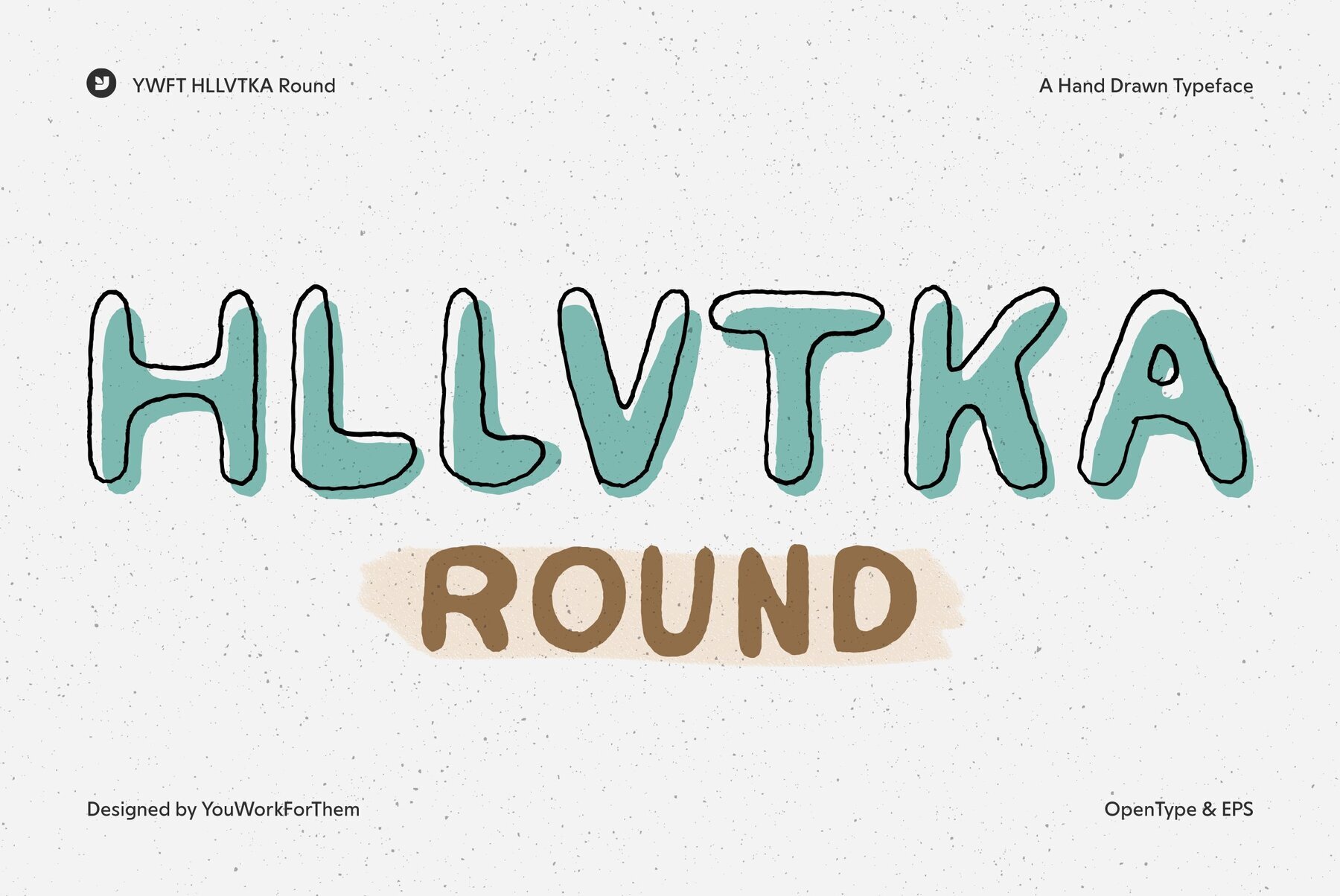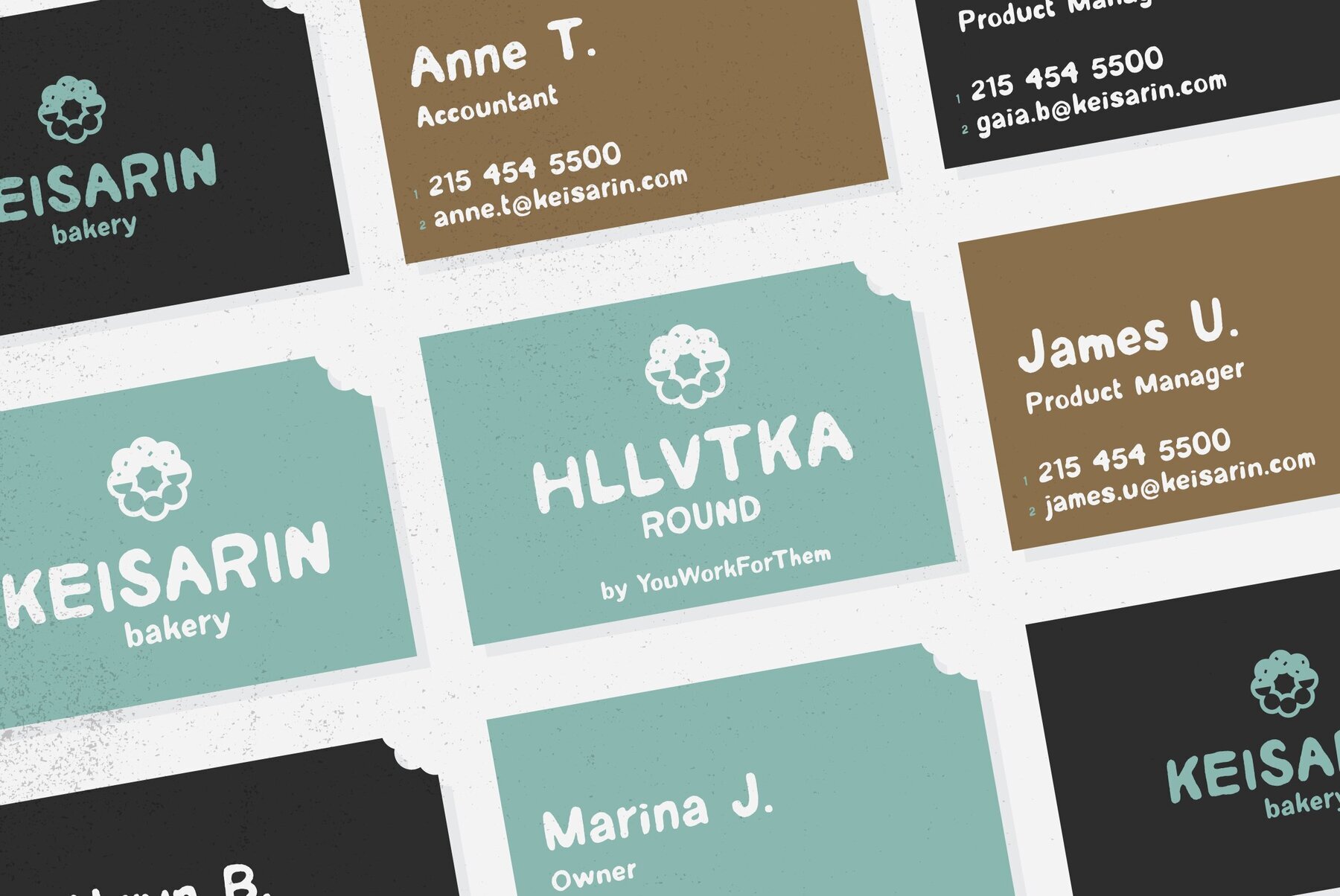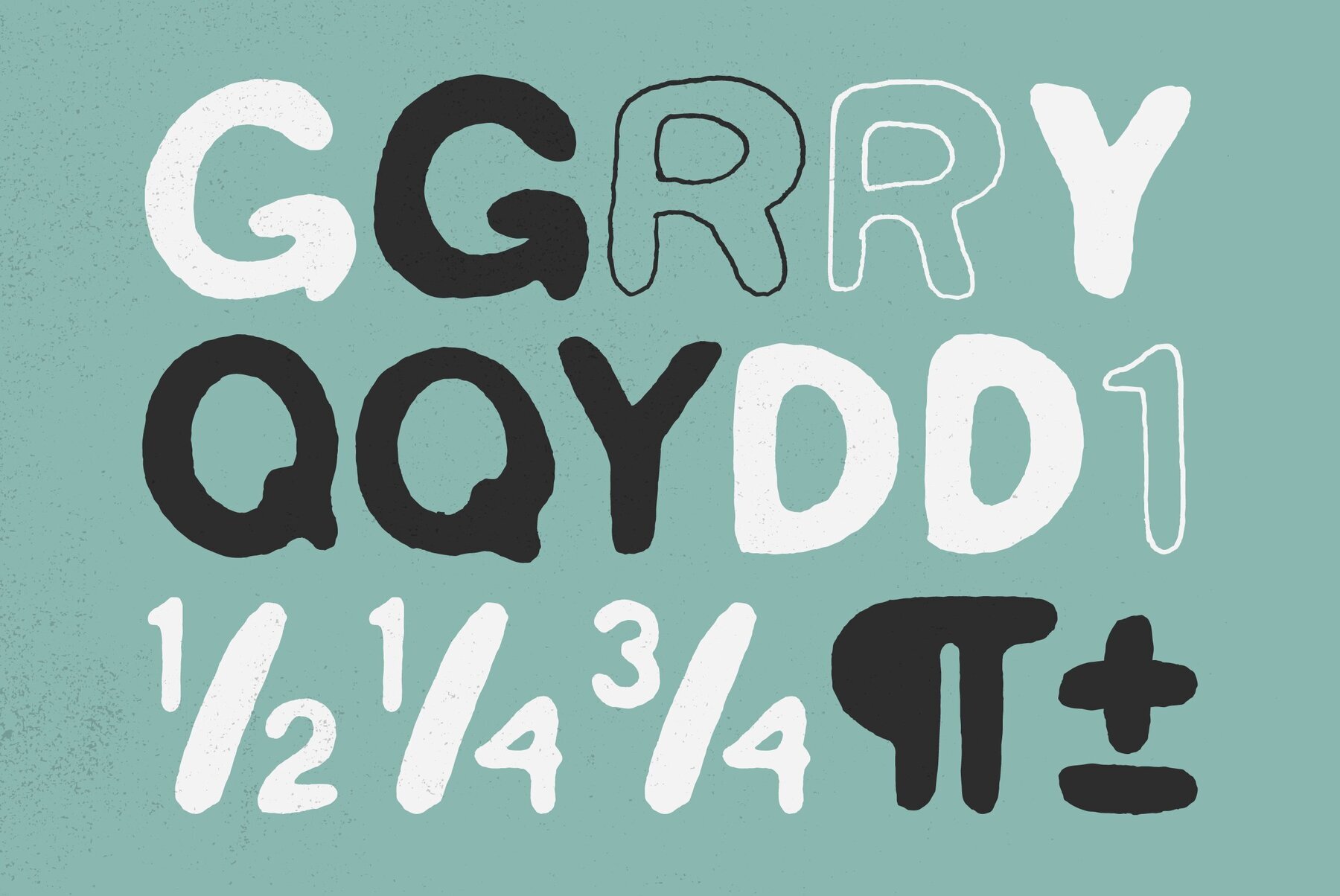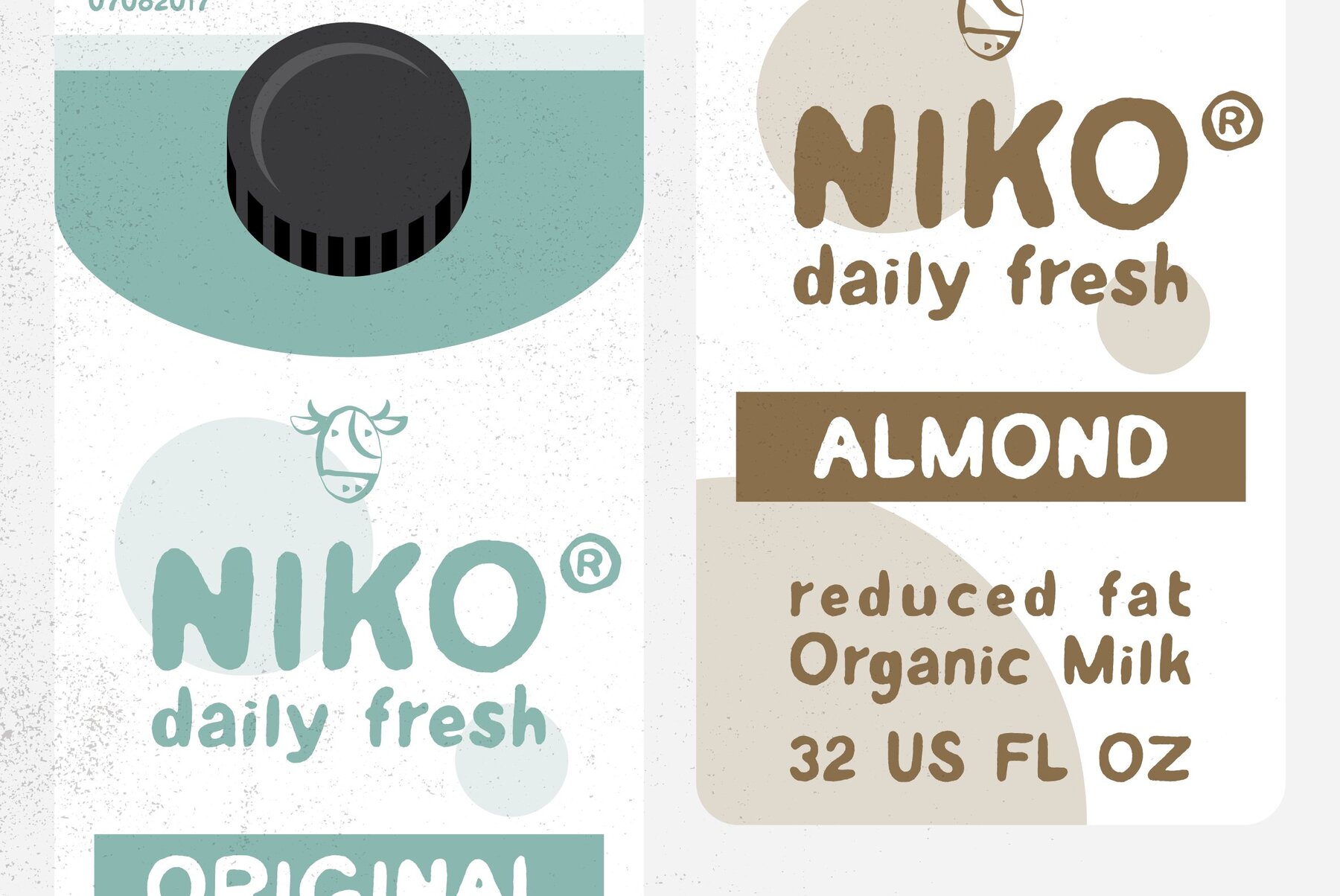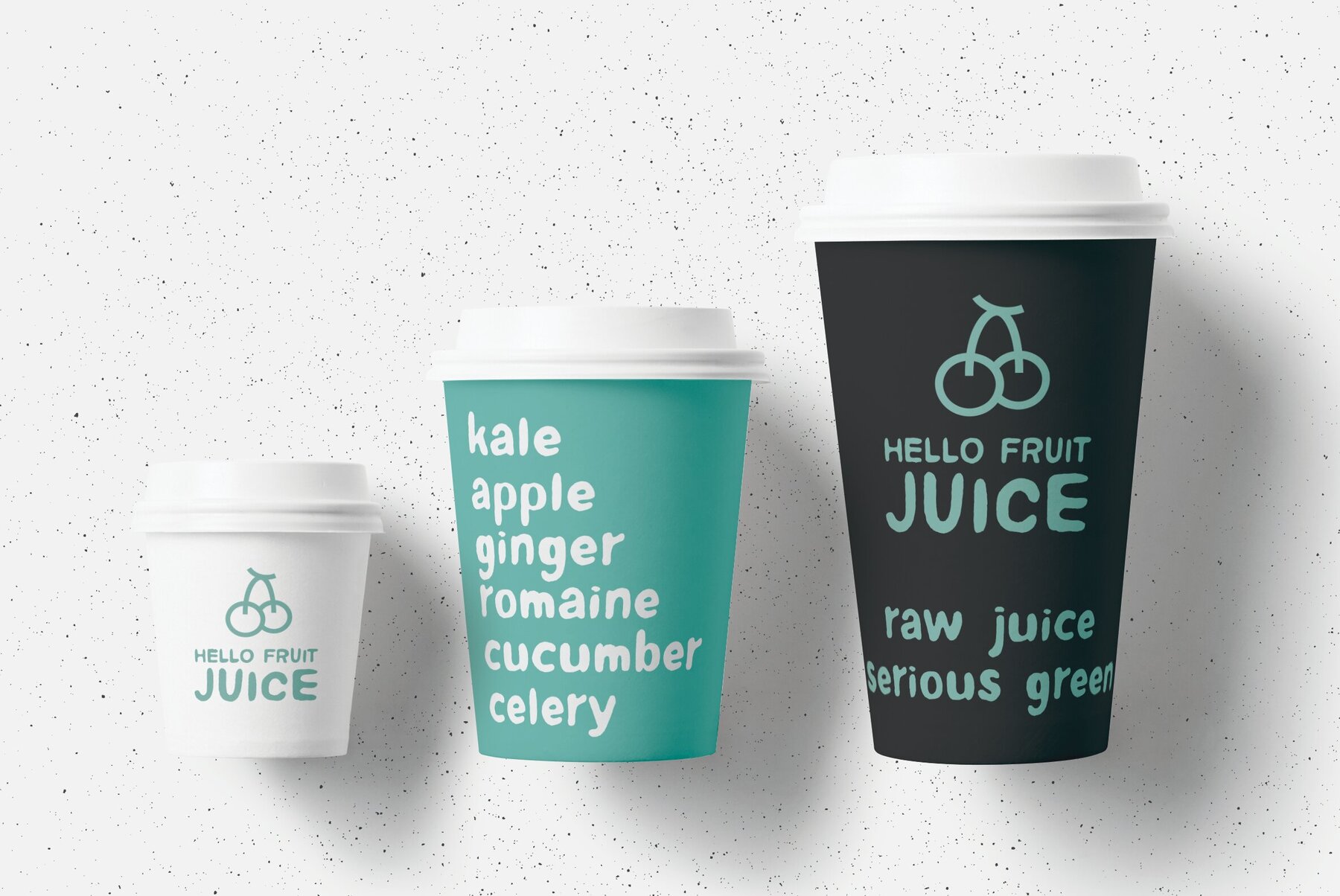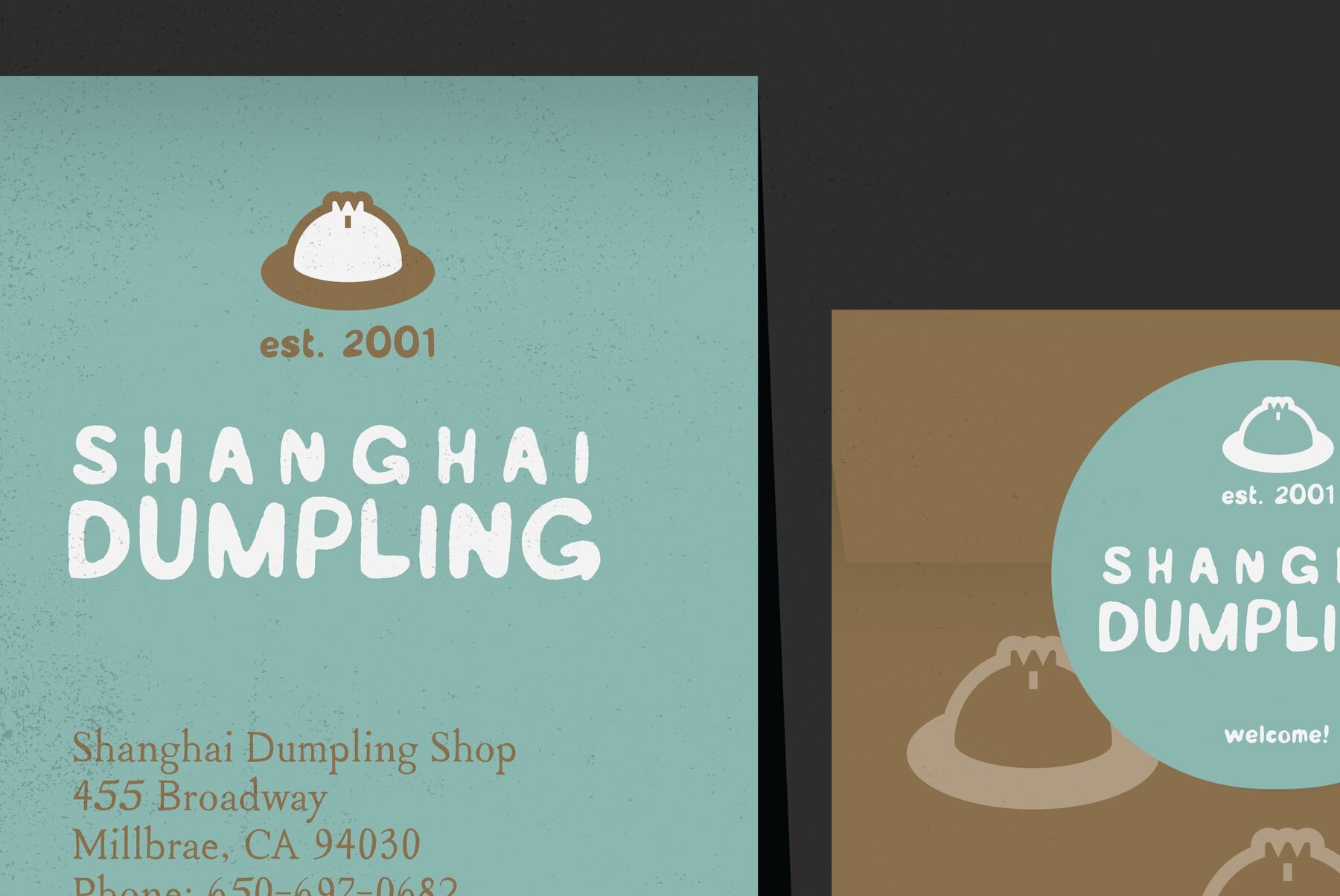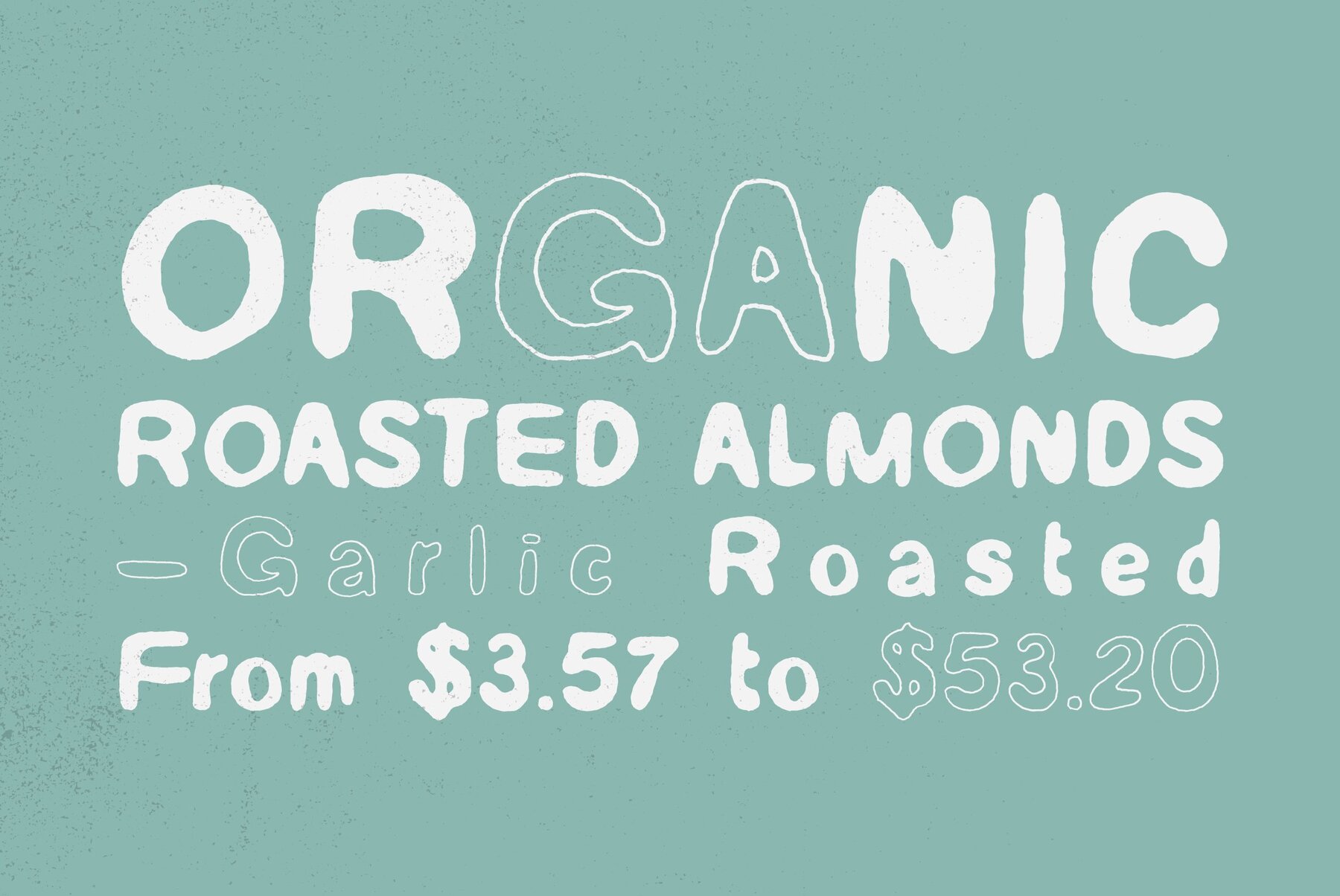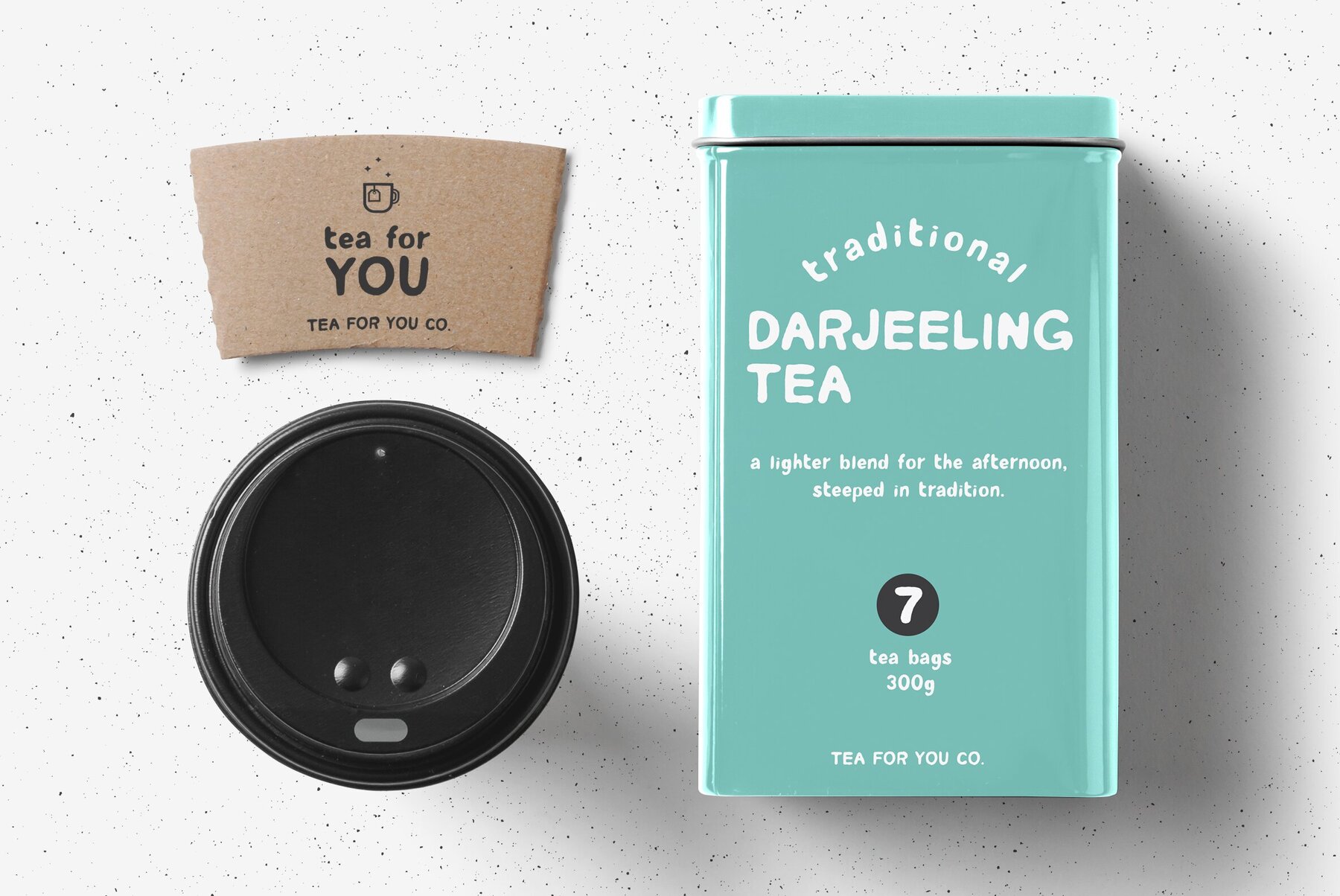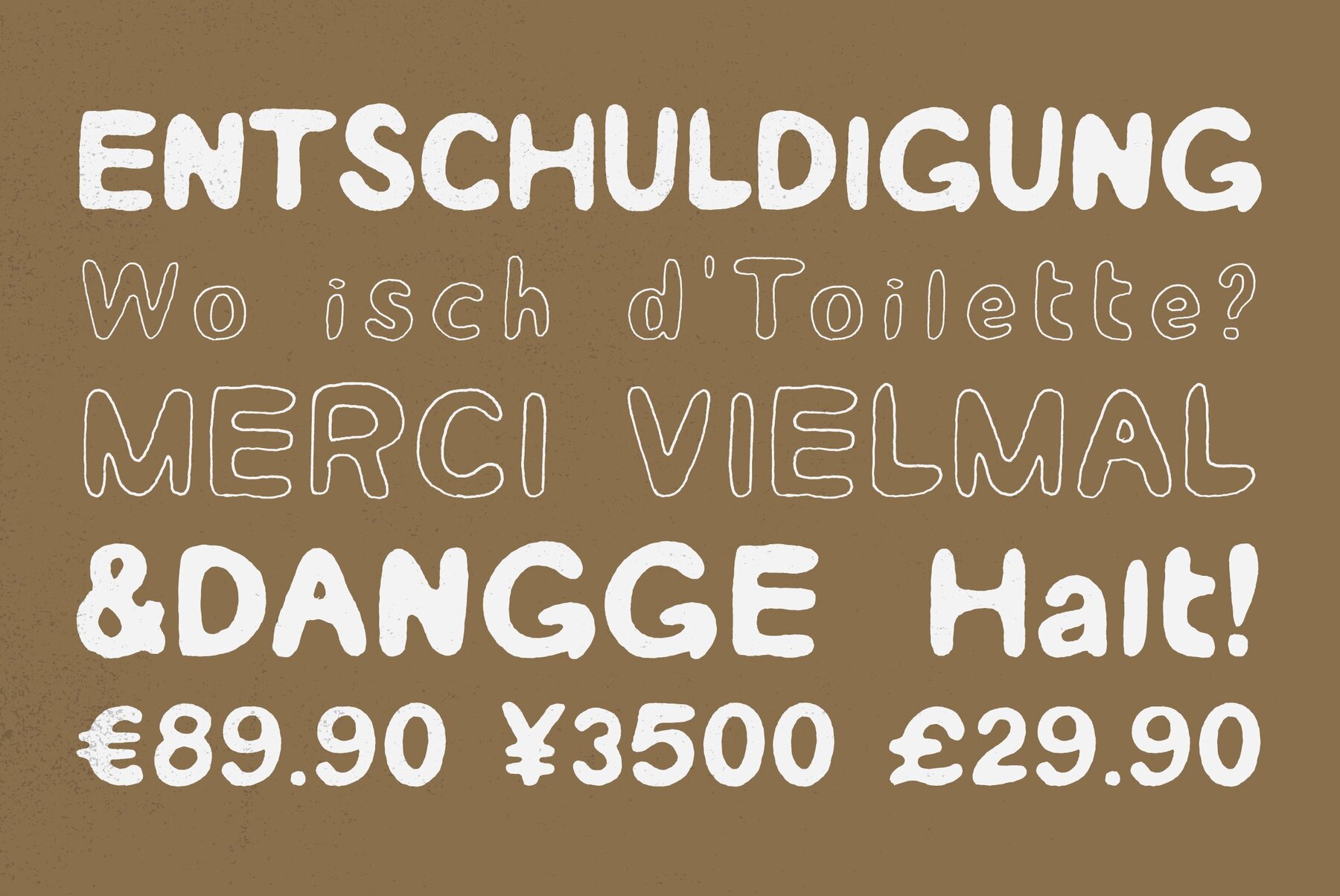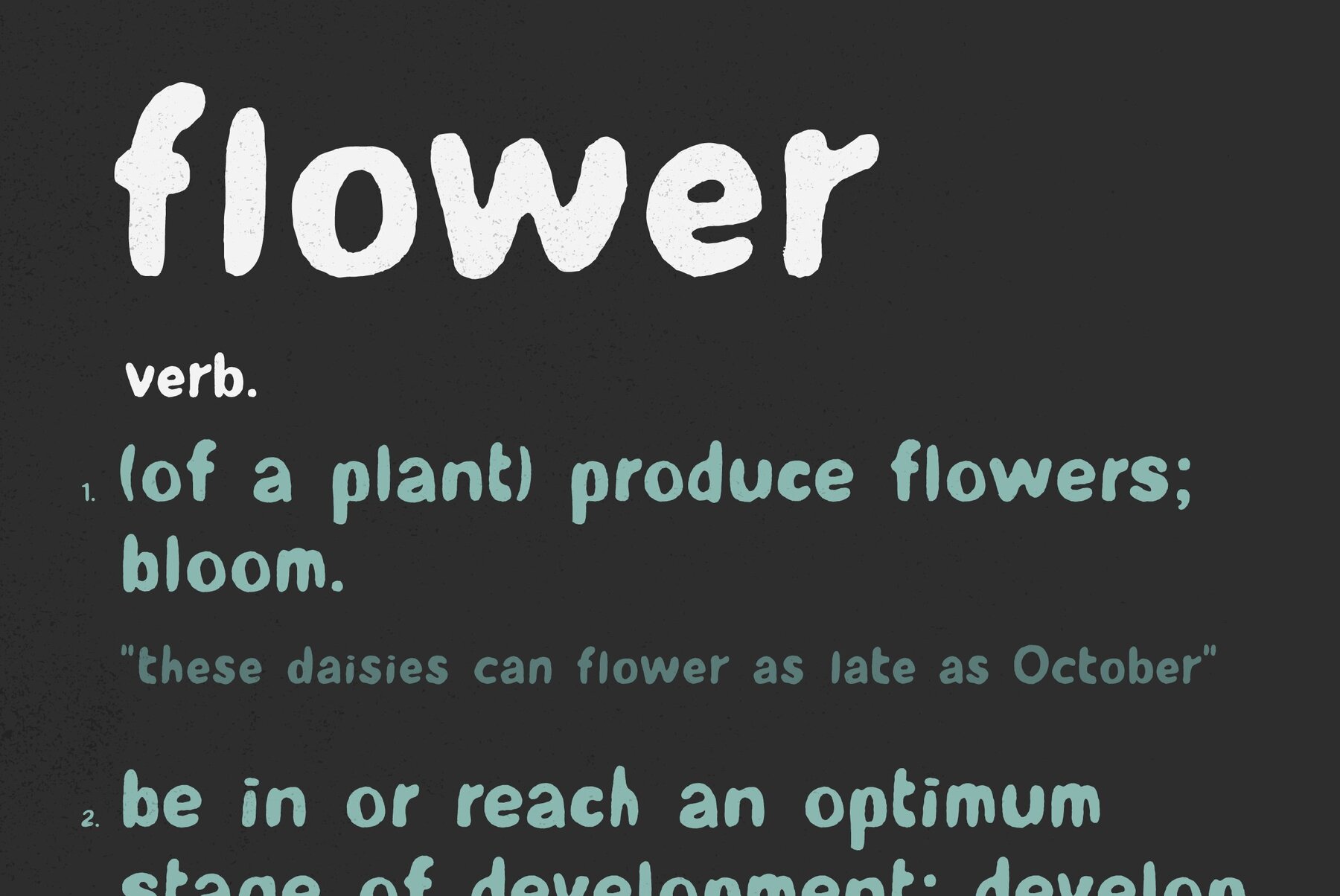
YWFT HLLVTKA Round Font
With great pride, we present this hand-drawn alphabet in both upper and lower case, derived from the beloved standard of all existing things: Helvetica. Originally hand drawn in 2007 by YouWorkForThem, we revisited these drawings in 2010 and developed them into a fully functional opentype release. YWFT HLLVTKA Round comes with two style options (normal and outline), with each style containing opentype stylistic alternates for upper case, lower case, numericals and punctuations. When you buy the complete family of YWFT HLLVTKA Round, we include a free copy of the original handset design (eps file), which contains several more letter options for your enjoyment. Designed by YouWorkForThem.